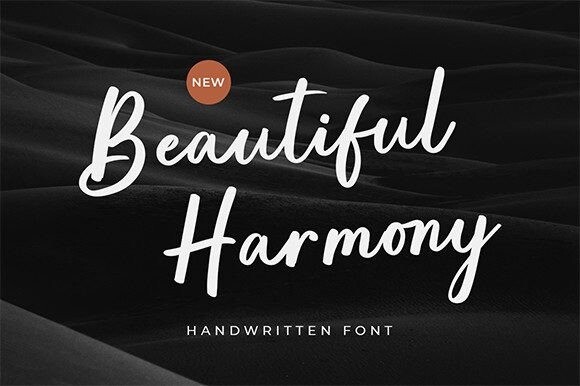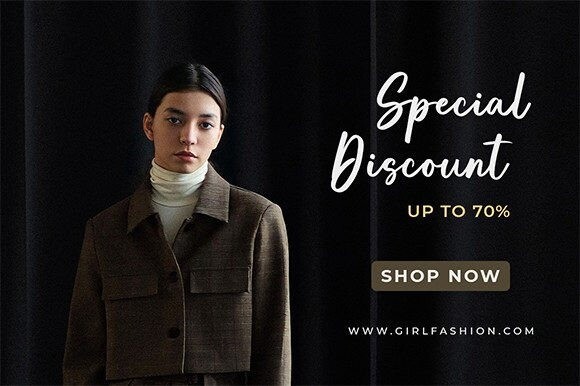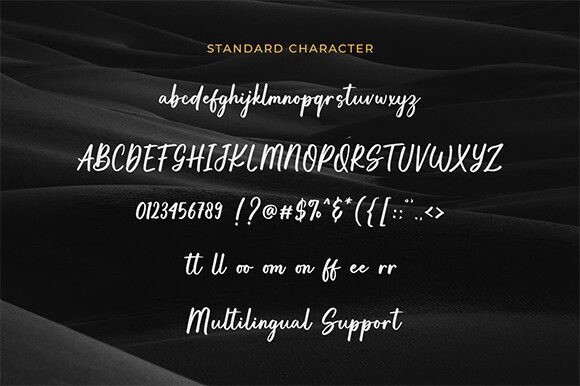
Beautiful Harmony Font
Beautiful Harmony Font is a cool and casual handwritten font suitable for designs such as T-shirts, logos, advertisements, clothing, and many more. Add it to any of your creative projects, and they will capture everyone’s attention!